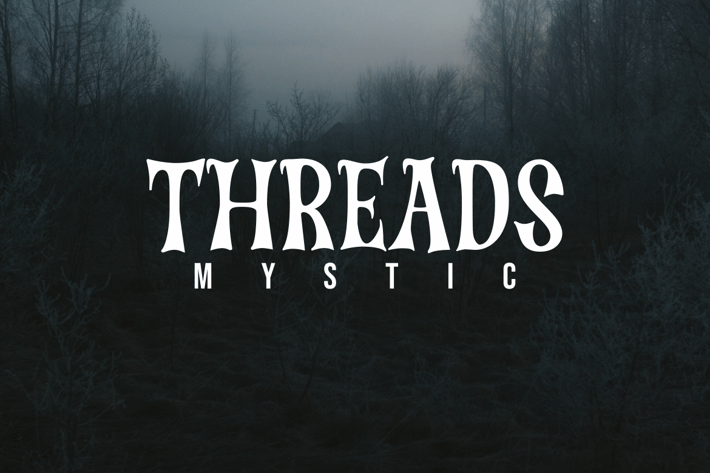
Treads Mystic - Display Font
Introducing Treads Mystic, a simple-mystic serif font.
So perfect for you who needs a typeface for logo designs, magazine, social media, brochure, and many more.